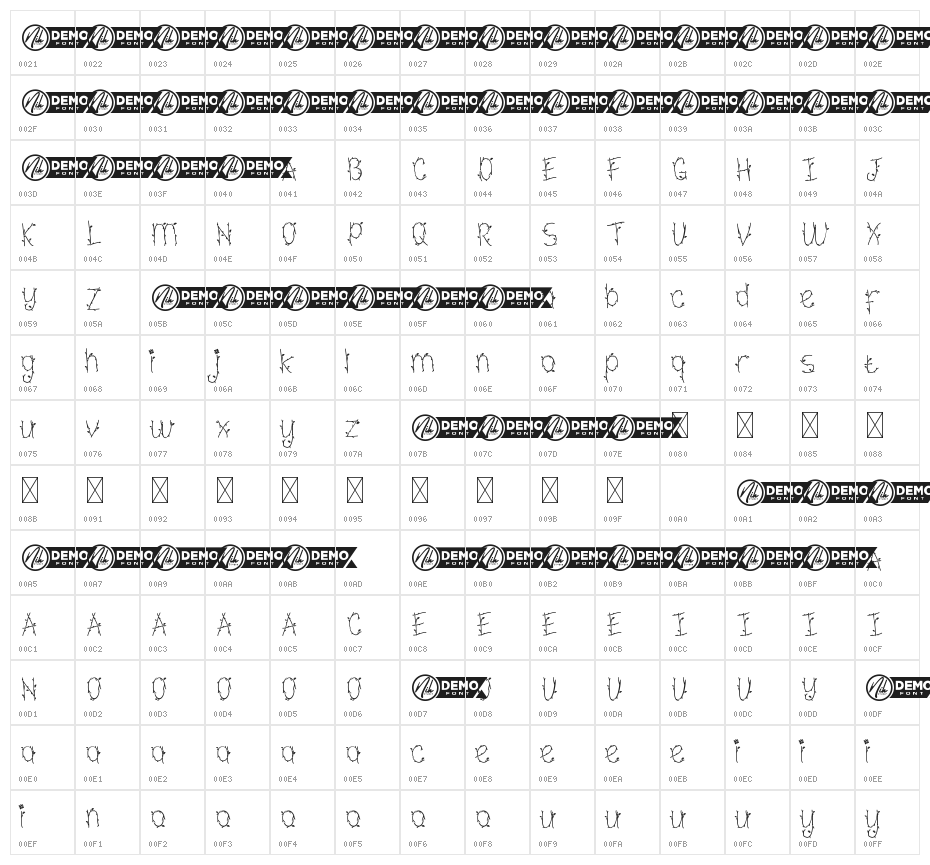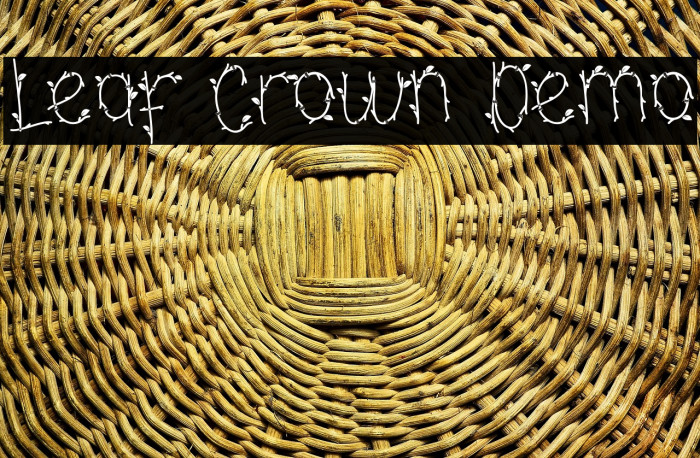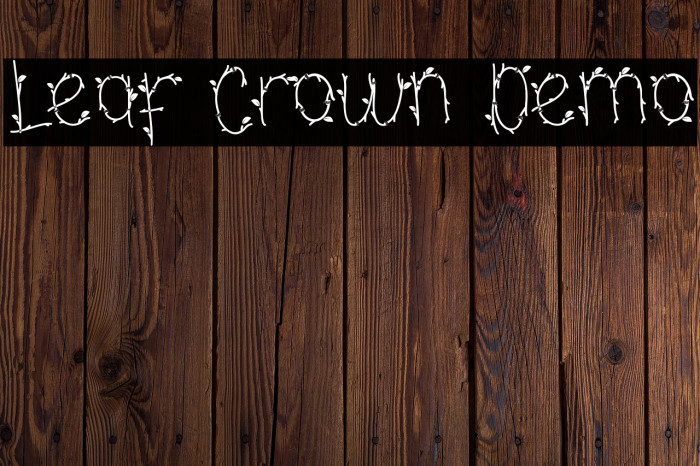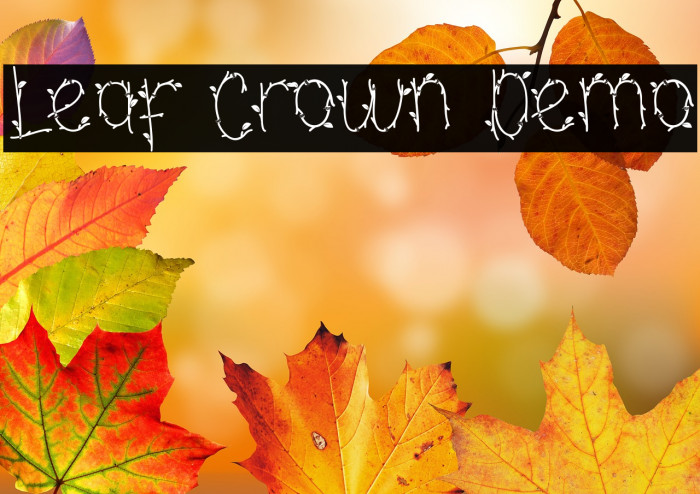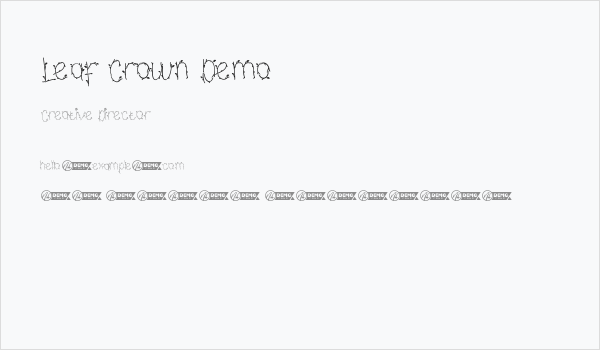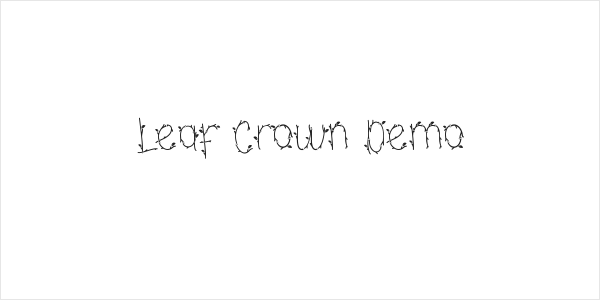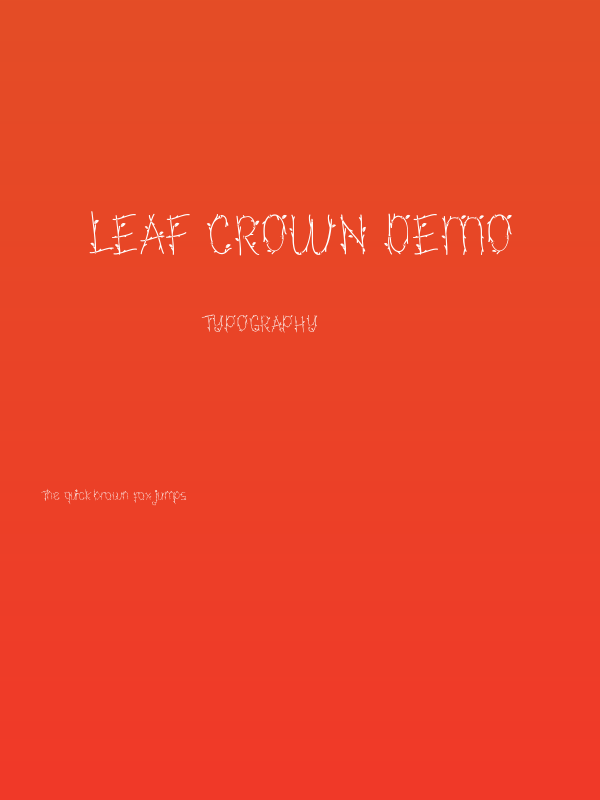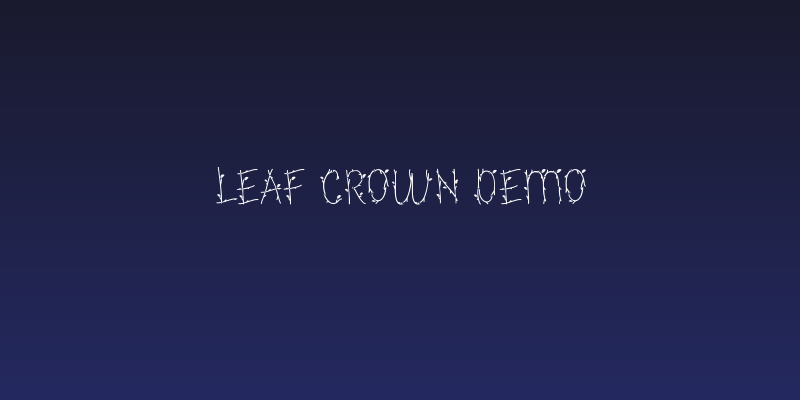
Leaf Crown Demo Font
Leaf Crown Demo Description
This font features a whimsical and organic design, with each character crafted to resemble twigs and leaves. The letters are formed with a natural, flowing style that mimics the appearance of vines or branches, creating a unique and decorative look. The font's intricate details and nature-inspired elements make it stand out, offering a playful yet elegant aesthetic. The combination of sharp angles and smooth curves gives it a dynamic feel, suitable for projects that aim to convey a sense of growth, nature, or creativity.
| Proposed Projects | Ideal for eco-friendly branding, garden-themed invitations, or nature-focused event posters. |